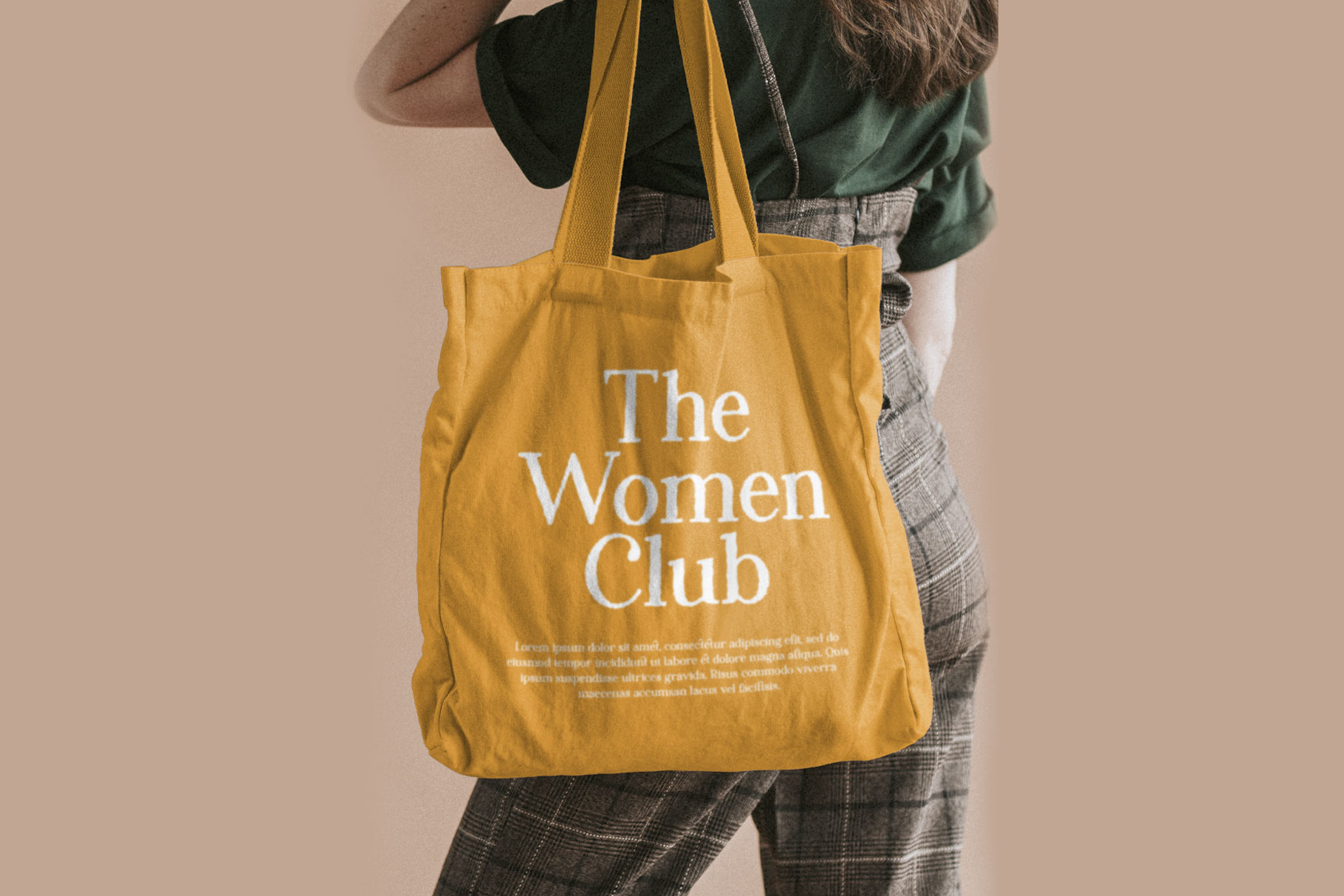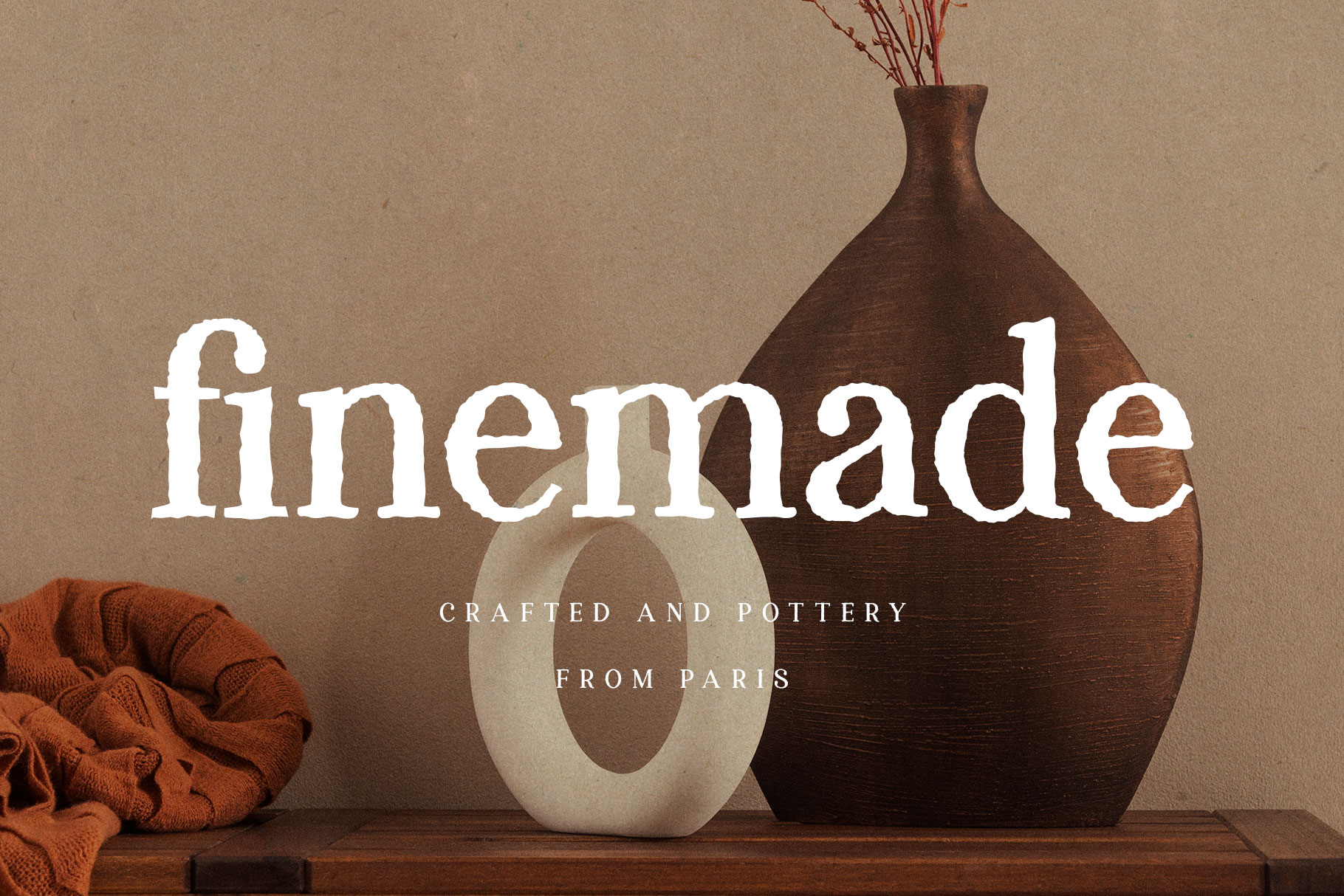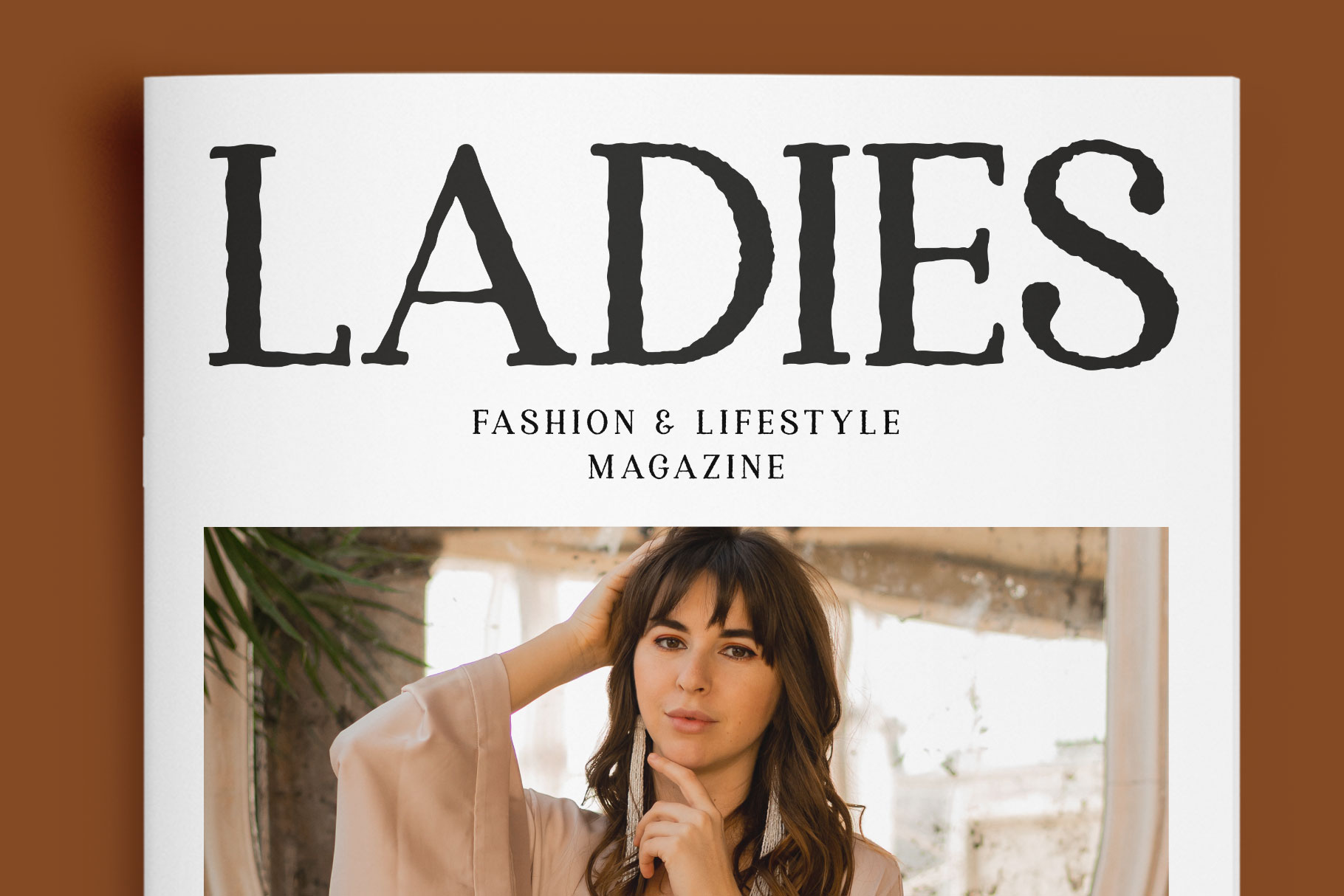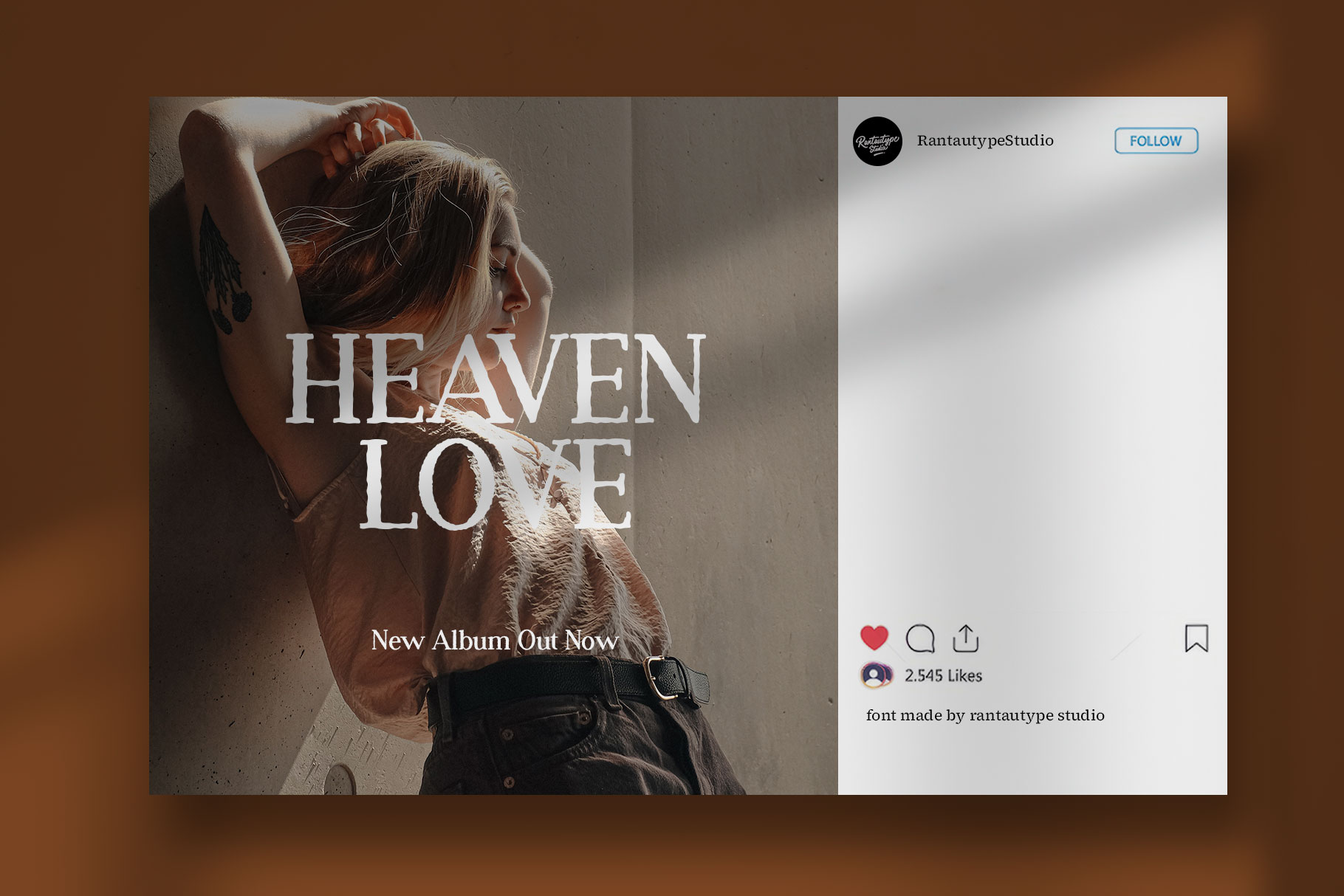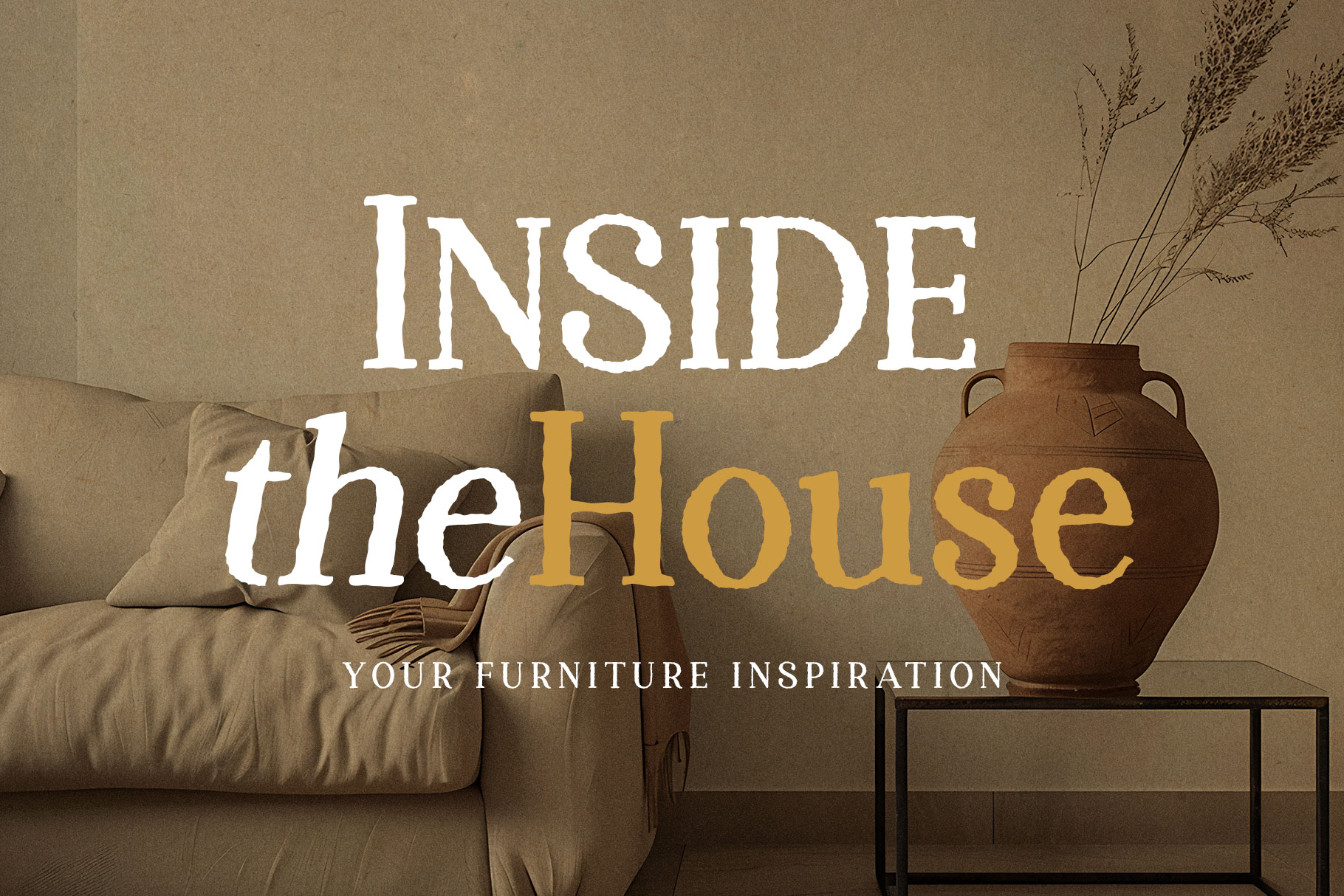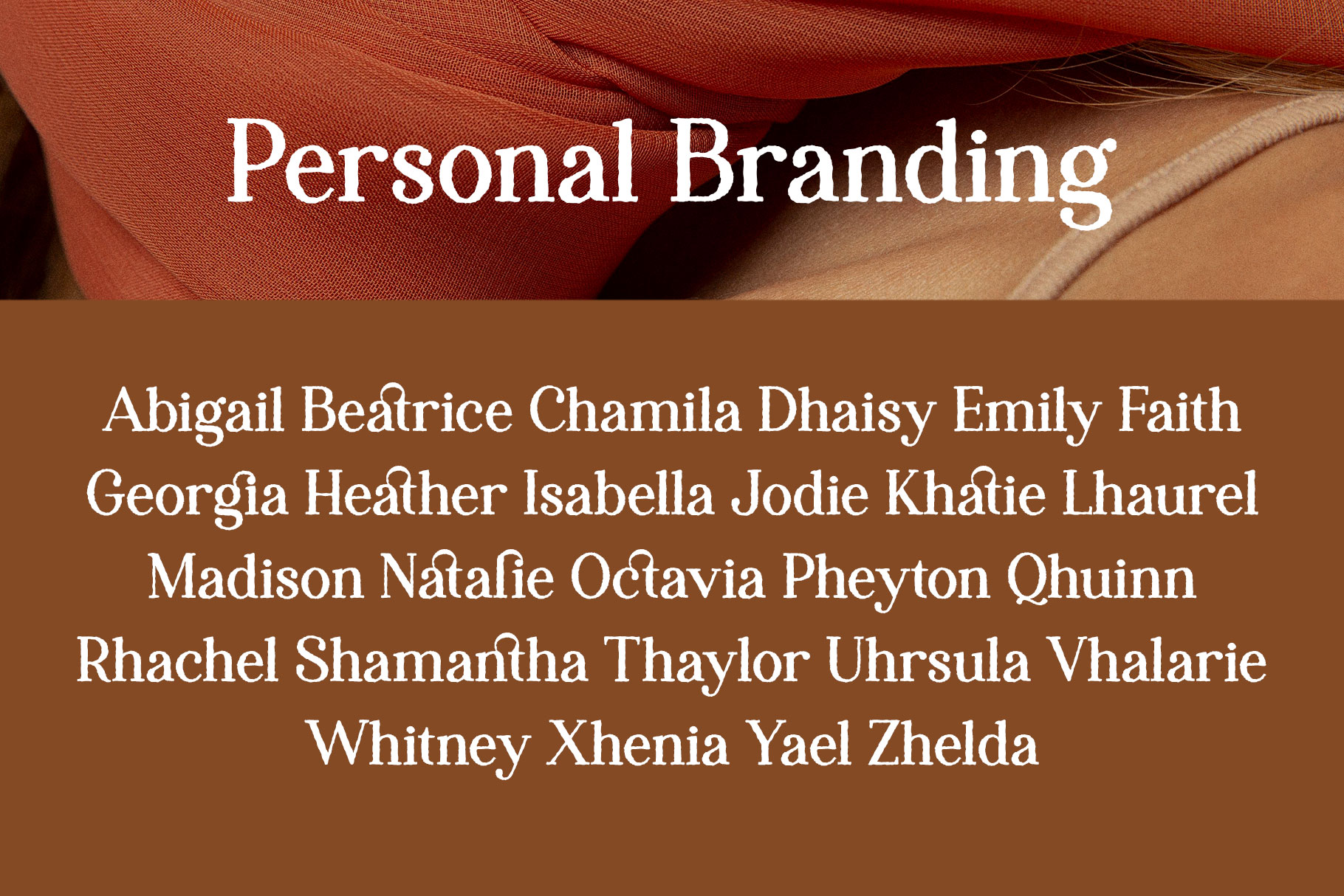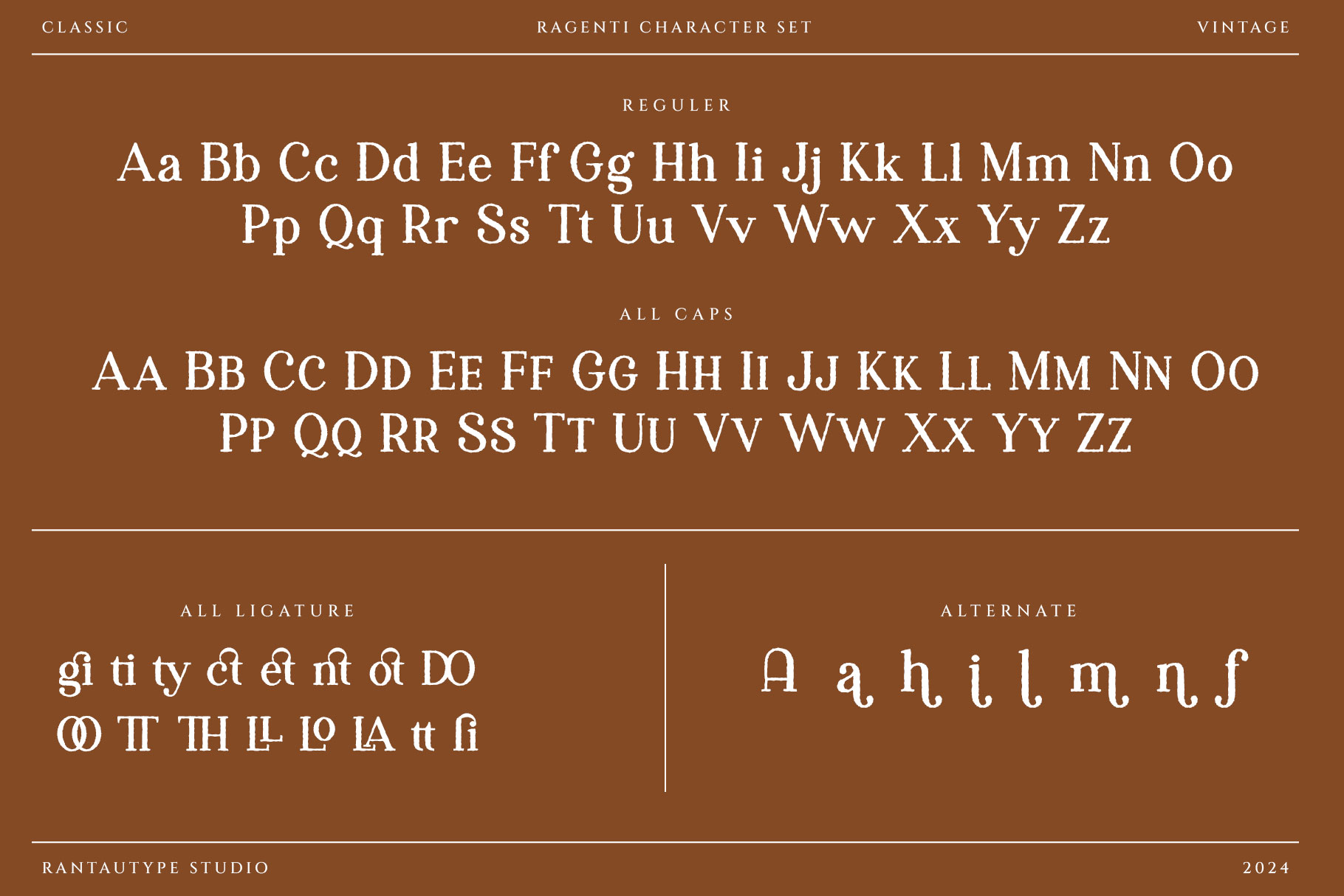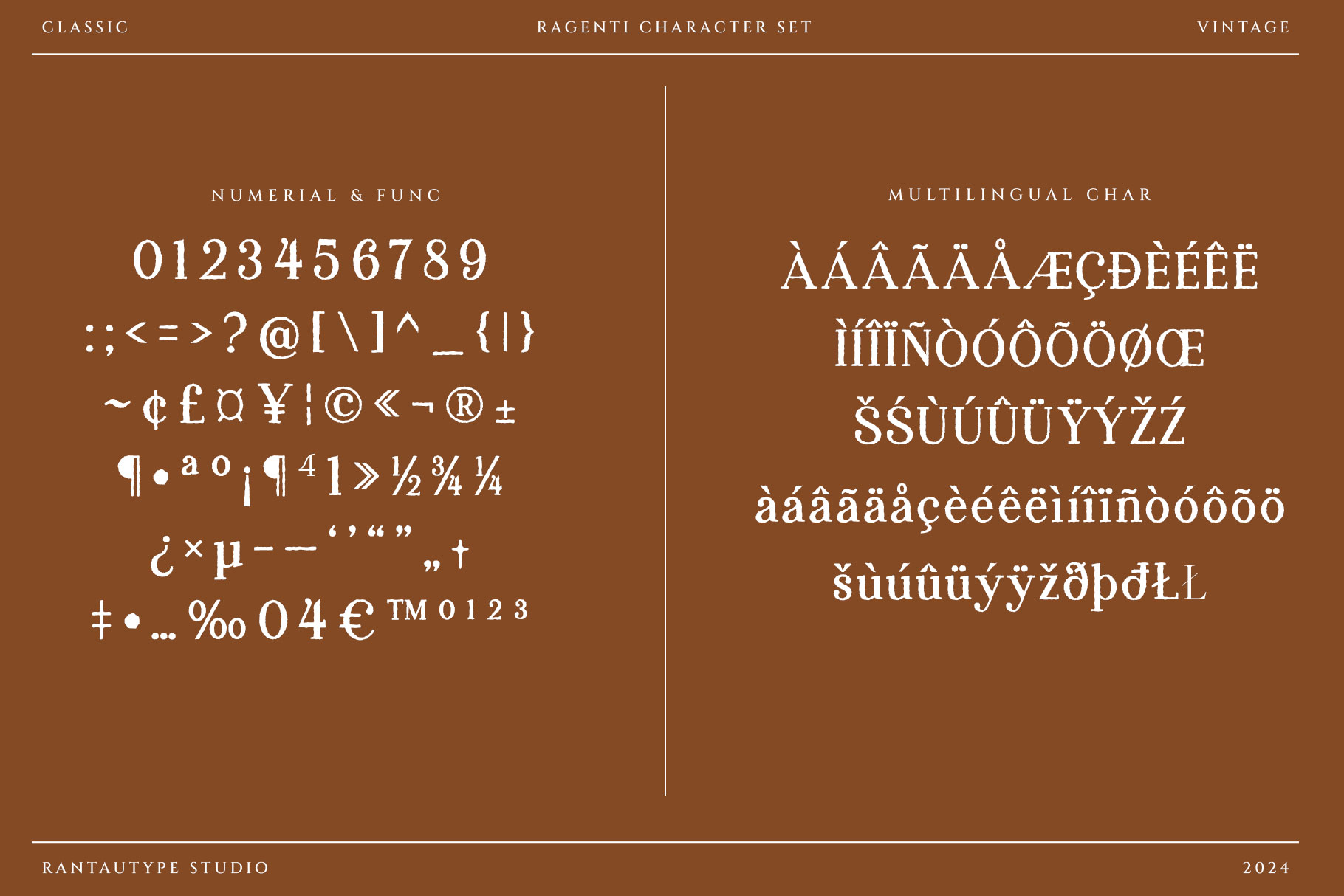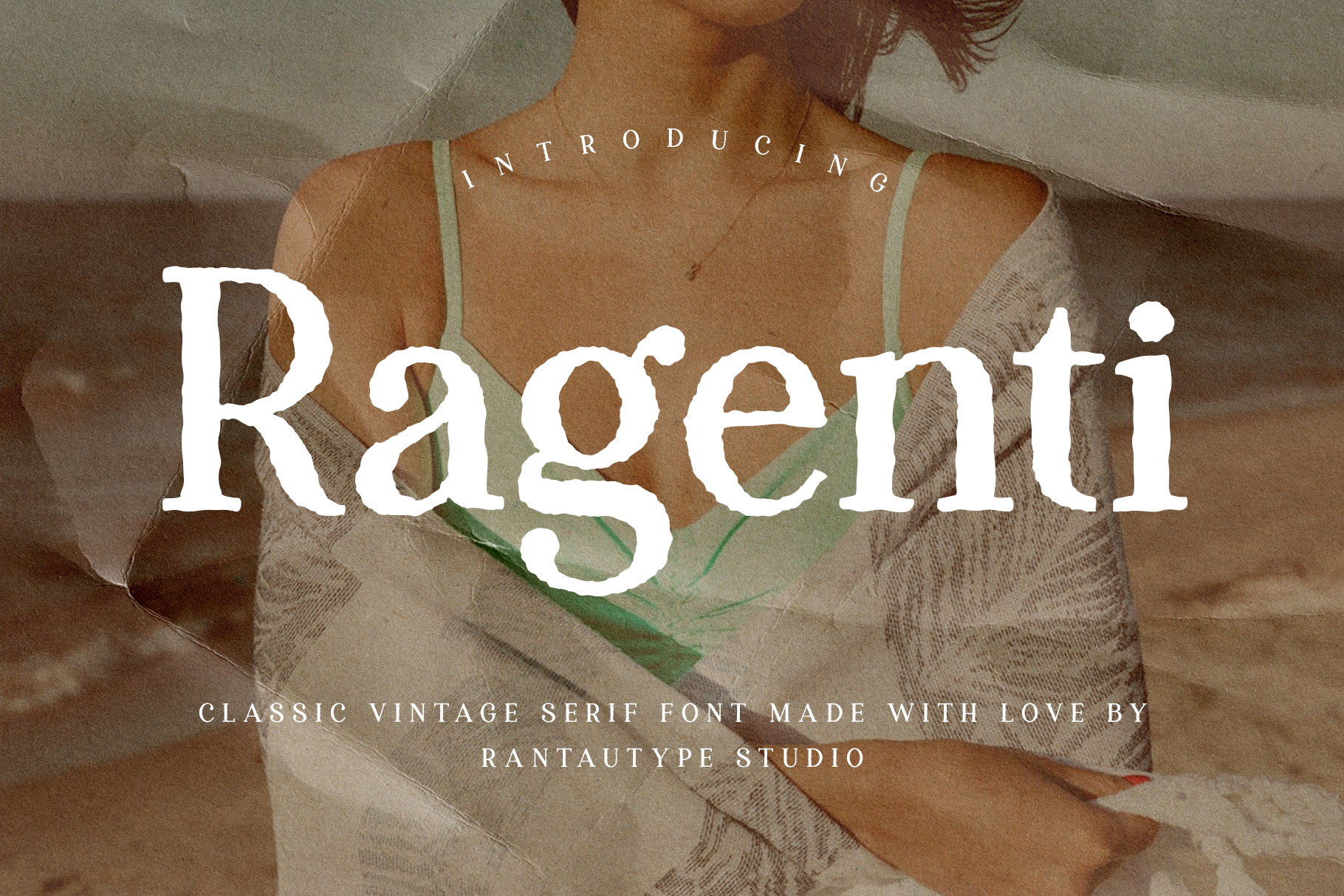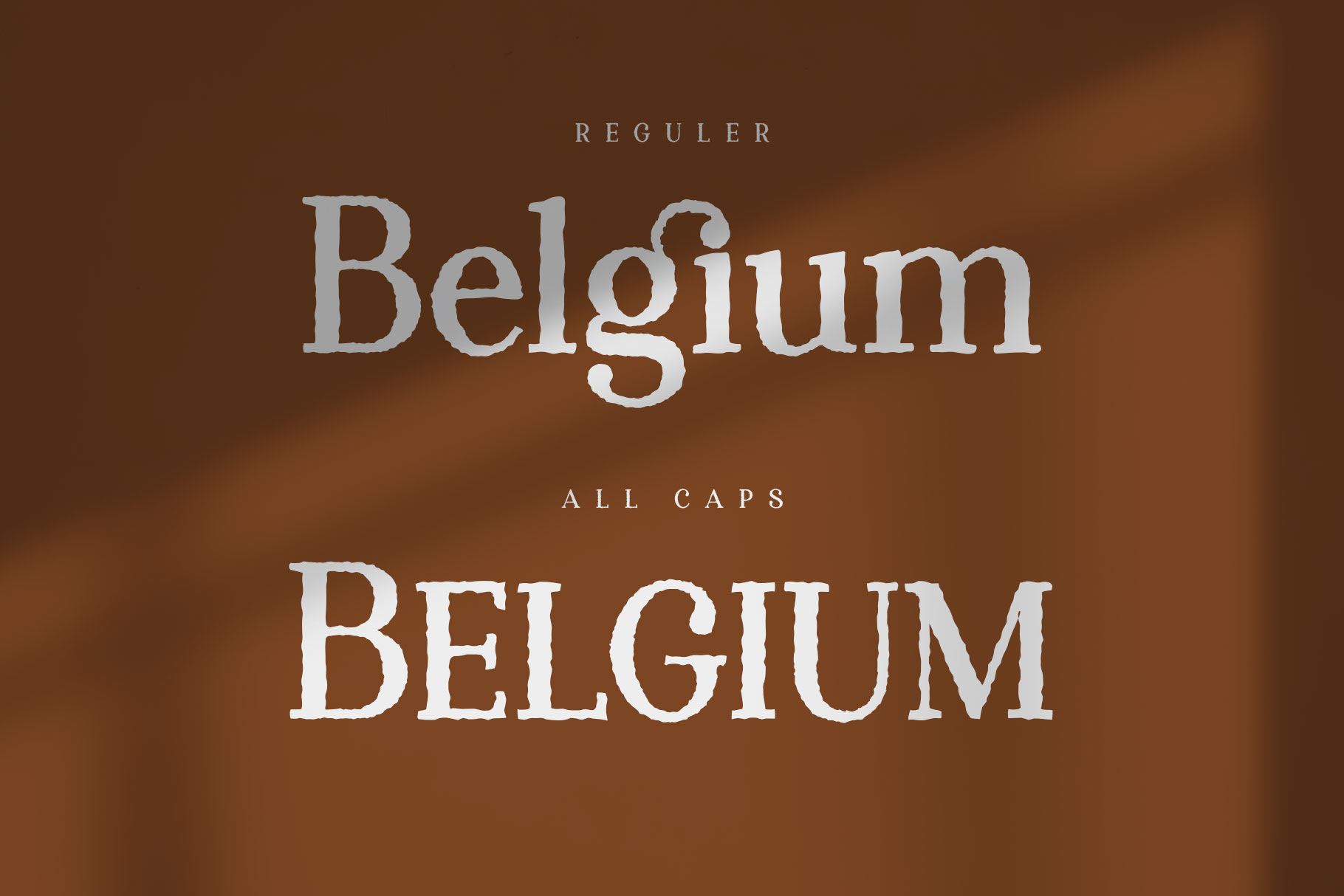
Ragenti Classic Serif Font
Ragenti is unique vintage serif font inspire by torn paper. Ragenti bring jagged shape to make memoriable character into your design project. Ragenti come with two version in reguler and all caps, you can choice one or mix to creat what you love.
Ragenti is a perfectly choice for any creative endeavor, chic, lifestyle design such as logos, advertisements, stationery, branding project, display and magazine, invitation, corporate brand, product design, label, business project and many other project with vintage touch.